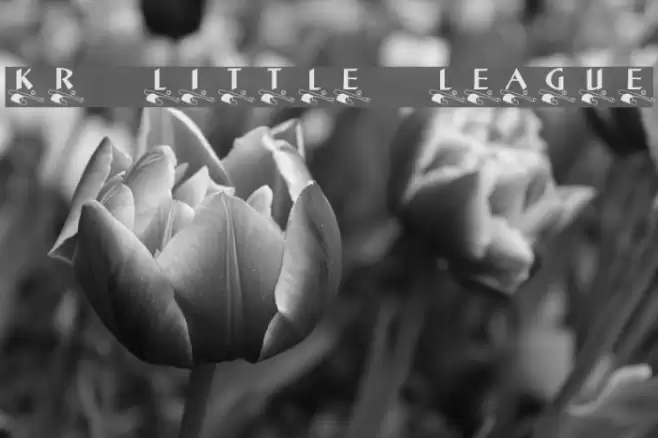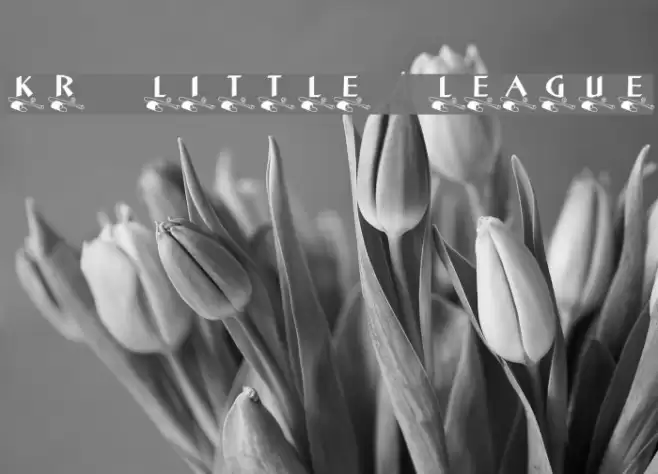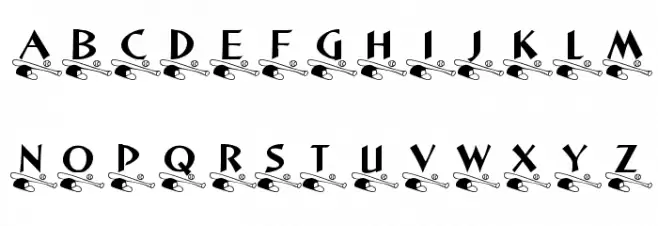
KR Little League Font
KR Little League Description
This font features a playful and sporty design, incorporating elements of baseball with each character. The letters are bold and stylized, with a unique flair that includes a baseball bat and ball motif integrated into the design. The uppercase letters are prominent and eye-catching, making them suitable for attention-grabbing headlines or themed projects. The overall look is dynamic and energetic, capturing the essence of a baseball league. This font is ideal for projects that require a fun and athletic vibe, such as sports team branding, event posters, or children's sports programs.
A playful, baseball-themed font with bold, stylized letters and sporty motifs from Uncategorized fonts.
- Proposed Projects: Ideal for sports team branding, event posters, children's sports programs, and themed merchandise.